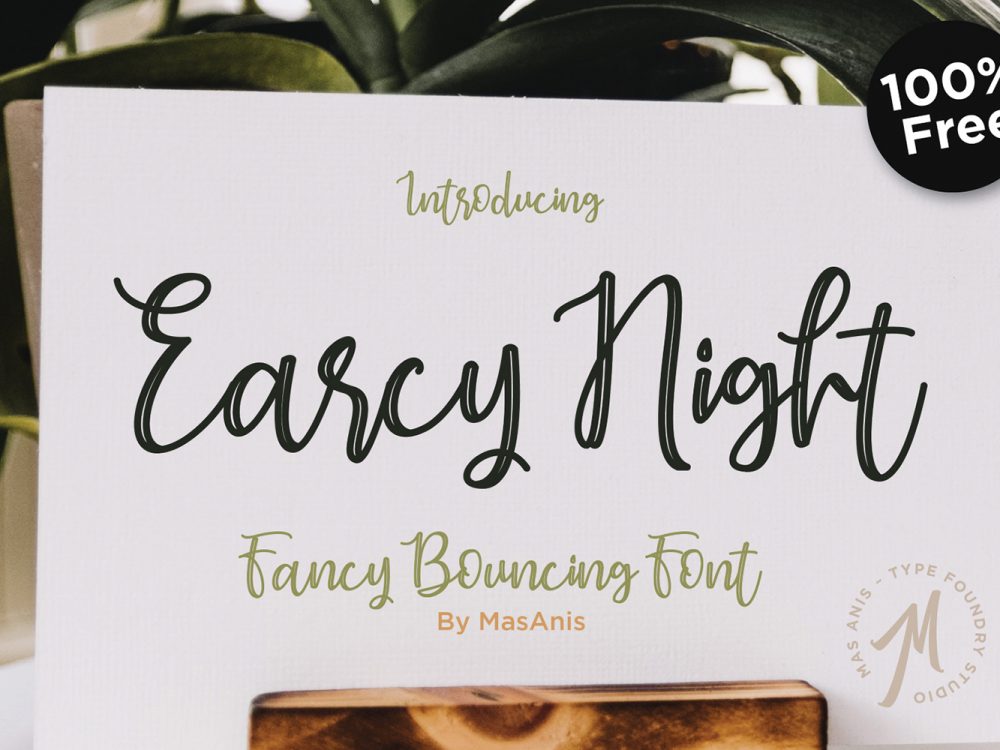
Earcy Night Free Font
Earcy Night Free Font is a beautiful free handwritten font that has a fluid style and is very suitable for creating various design projects that require a scripted font. These can be posters, wedding invitations, cards, branding, advertisements, flyers, prints, and more.